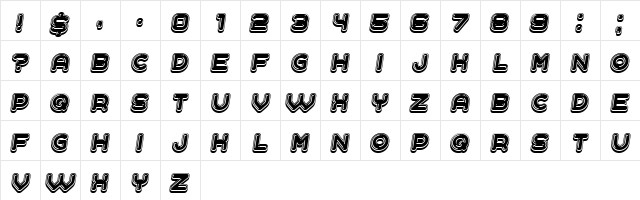
Polished Italic
Design Context for Polished Typeface
Polished is a composed and adaptable typeface that performs quietly and consistently across a wide range of design contexts. The slanted form adds forward momentum and visual energy.